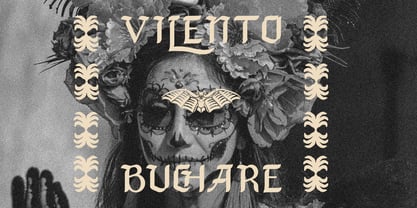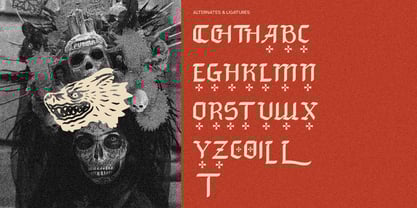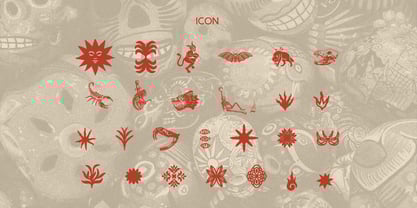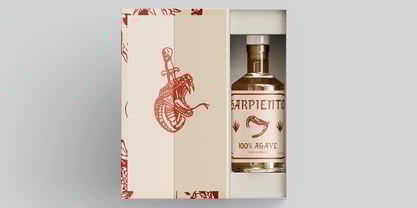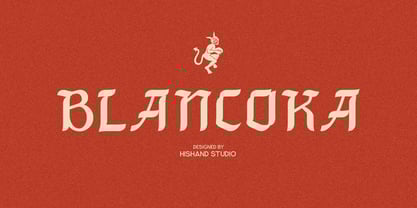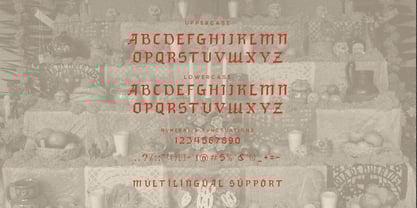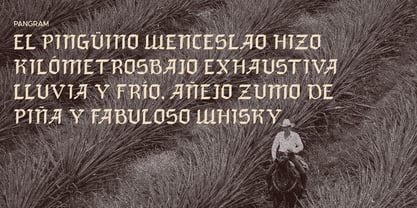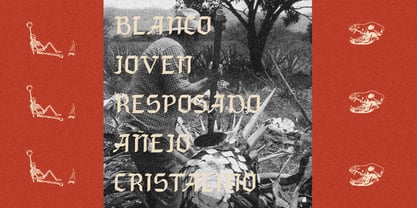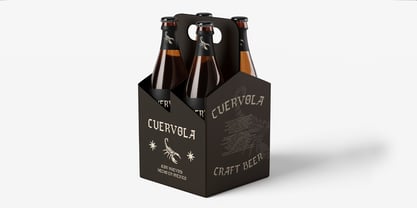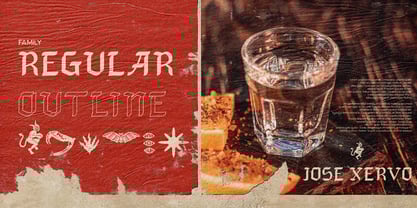
Blancoka
by Hishand Studio
The Blancoka Font Family was designed by Putu Dody Permana and published by Hishand Studio. Blancoka contains 3 styles and family package options. More about this family
Blancoka is a bold and expressive display font that captures the spirit of Mexico and the fiery soul of tequila. Blancoka blends traditional blackletter aesthetics with a modern Latin flair, creating a typeface that's both nostalgic and strikingly original.
Inspired by the vibrant energy of Mexican cantinas, vintage tequila labels, and folkloric iconography, Blancoka brings a handcrafted feel and a rebellious edge. Its sharp, angular strokes echo the heat of the desert sun and the dance of fire in a shot of mezcal. Whether used for branding, packaging, posters, or editorial design, Blancoka makes a powerful statement that’s rich with cultural texture and visual drama.
Perfect for creative projects that seek authenticity, intensity, and a touch of myth, Blancoka stands tall just like a proud bottle of tequila on a dusty bar shelf. Complete with
• ligatures
• alternates
• regular
• outline
• icon
• kerning
• multilingual support
Designers: Putu Dody Permana
Foundry: Hishand Studio